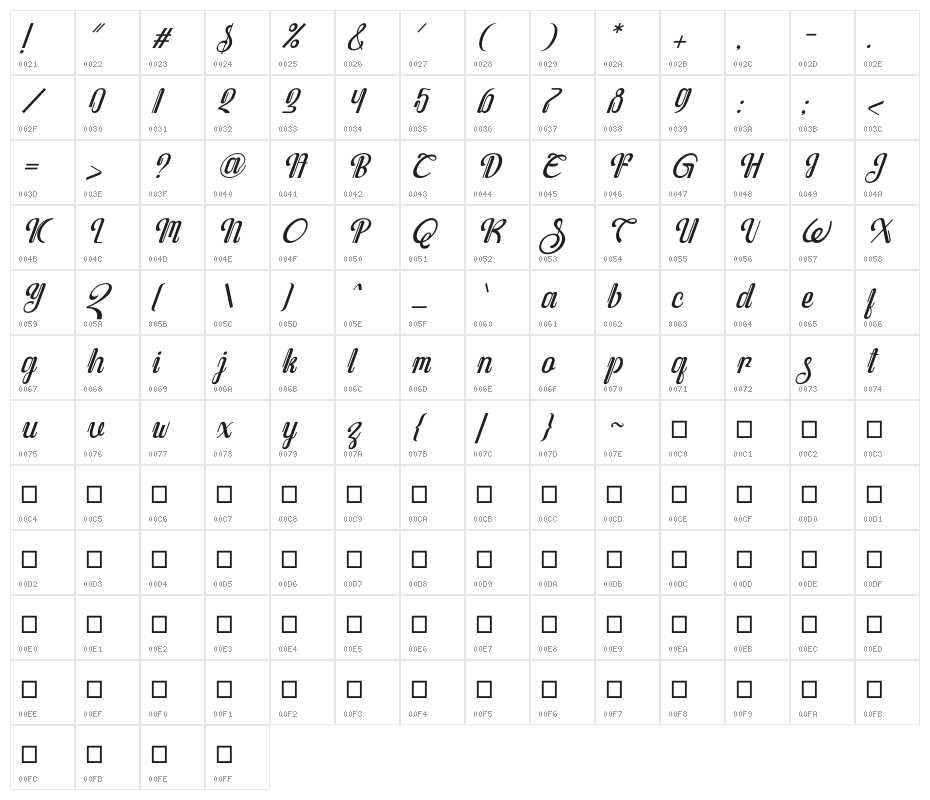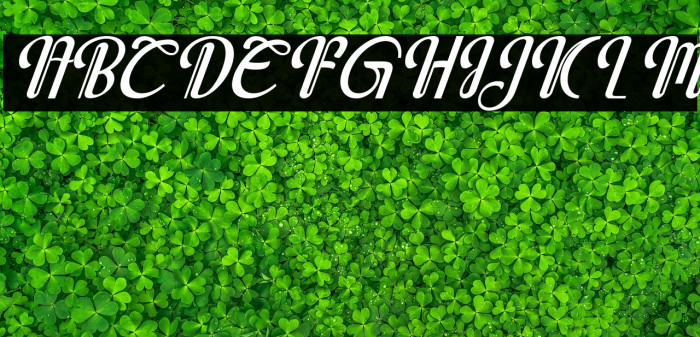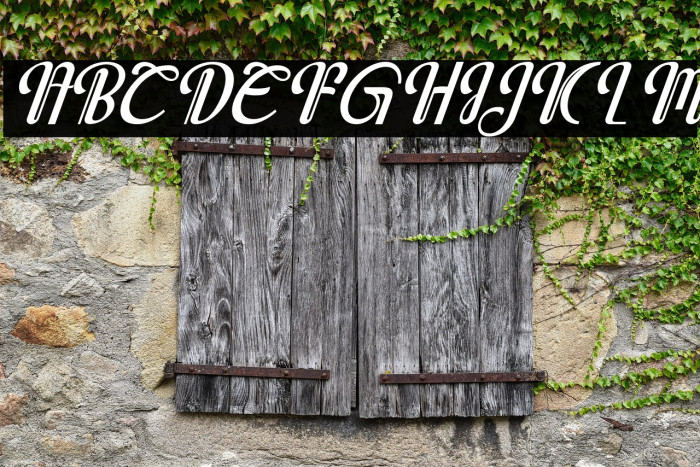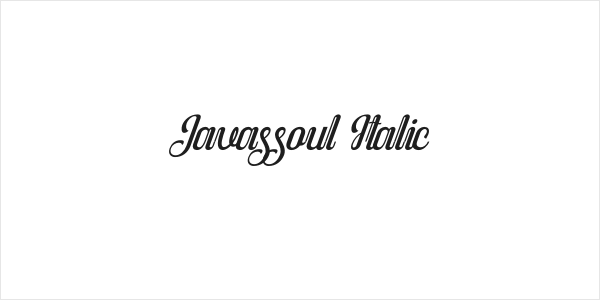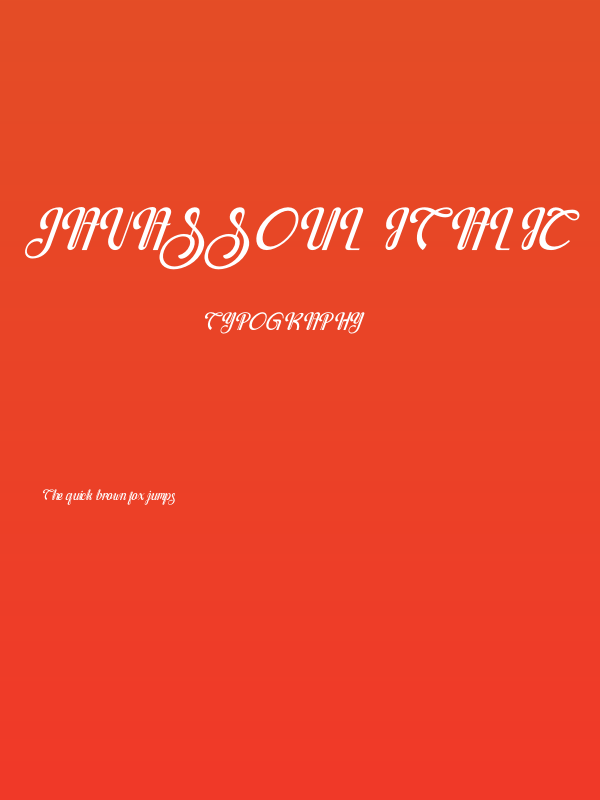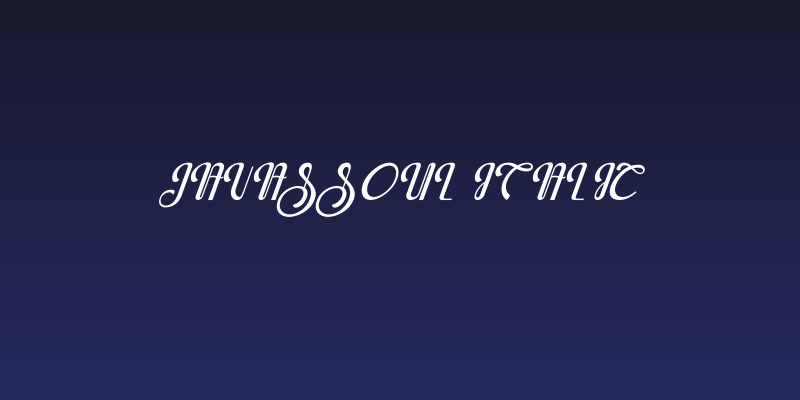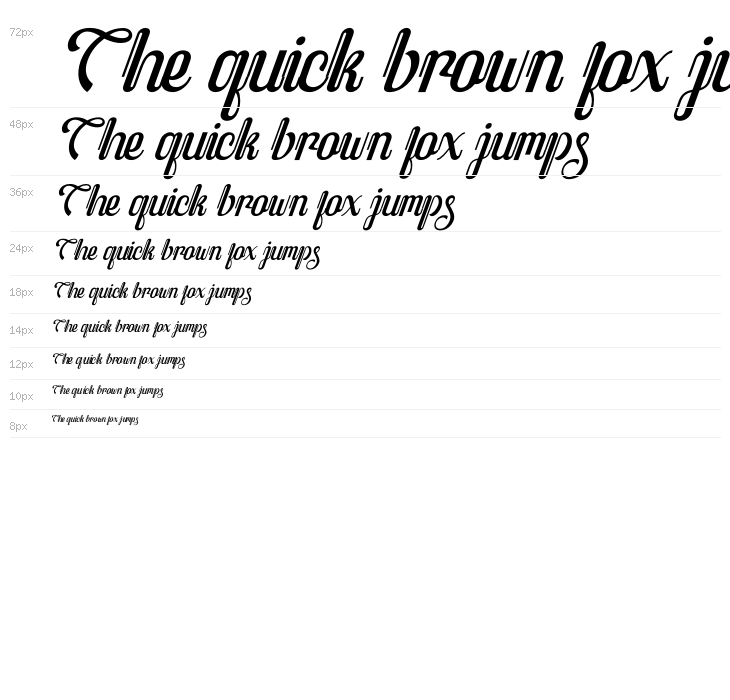
Javassoul Italic Font
Javassoul Italic Description
This font features a dynamic and flowing script style with a modern twist. The characters are elegantly slanted, giving a sense of movement and fluidity. The strokes are bold and confident, with a consistent thickness that adds to its legibility. The uppercase letters are particularly striking, with unique flourishes and curves that enhance their visual appeal. The lowercase letters maintain a harmonious balance, complementing the uppercase with their smooth and rounded forms. The numerals are distinct and clear, ensuring readability. Special characters are thoughtfully designed to match the overall aesthetic, making this font versatile for various applications.
| Proposed Projects | Ideal for branding, invitations, packaging, and editorial design where a touch of elegance and modernity is desired. |